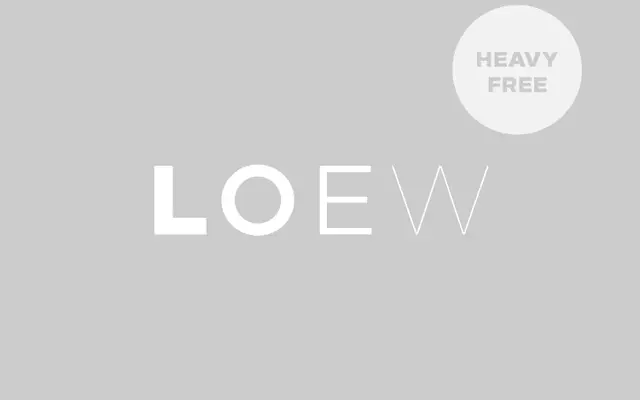
A geometric sans-serif with industrial roots, adjusted with subtle humanist corrections for readability across both display and text sizes.
Built from mechanical forms influenced by early industrial designers, Loew tempers its strict geometry with careful optical adjustments to keep characters legible at small sizes. Each style carries over 800 characters, with alternate lowercase a, e and g, seven numeral variants, small caps with accents and manually edited kerning. A practical, well-equipped family suited to branding, editorial and interface work where clean geometry is wanted without sacrificing usability.
Explicitly described as geometric-based, with pure mechanical shapes drawn from early industrial design traditions, placing it firmly in the geometric sans-serif subcategory.